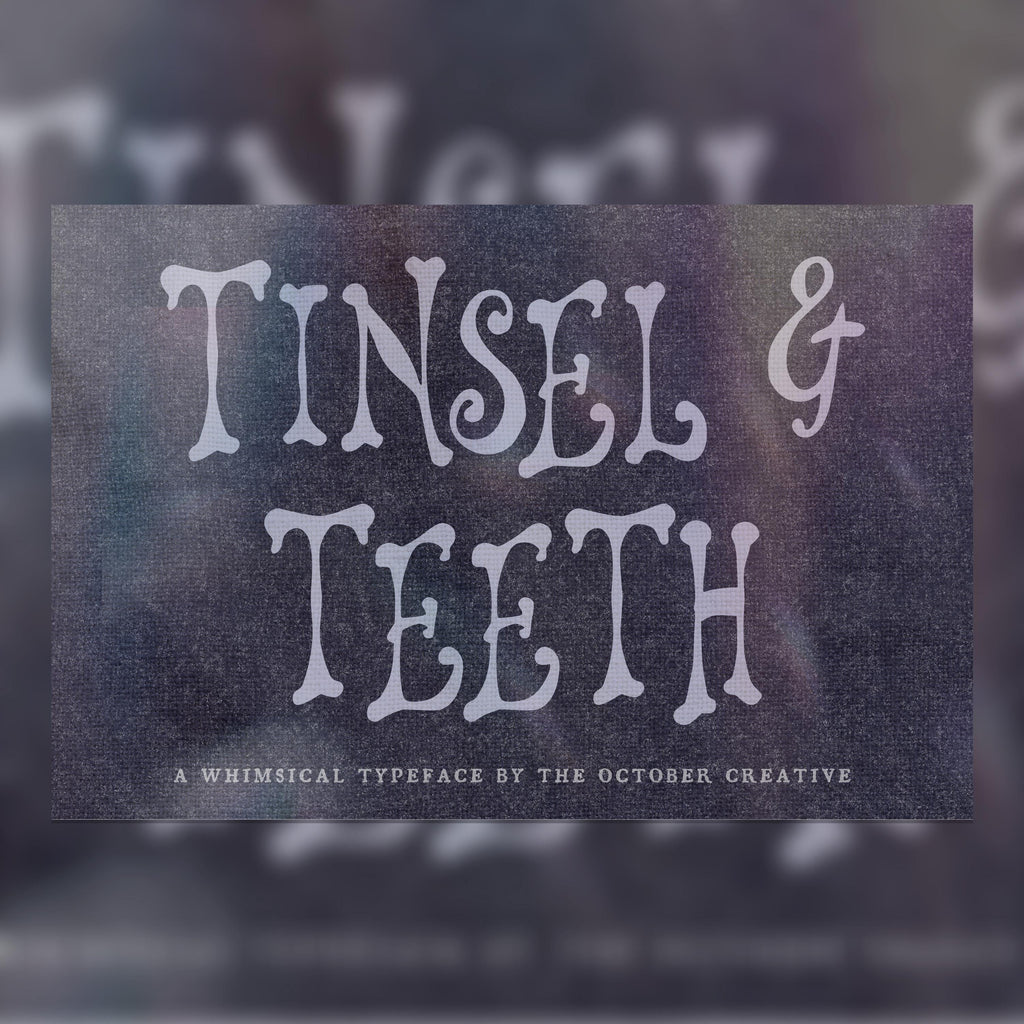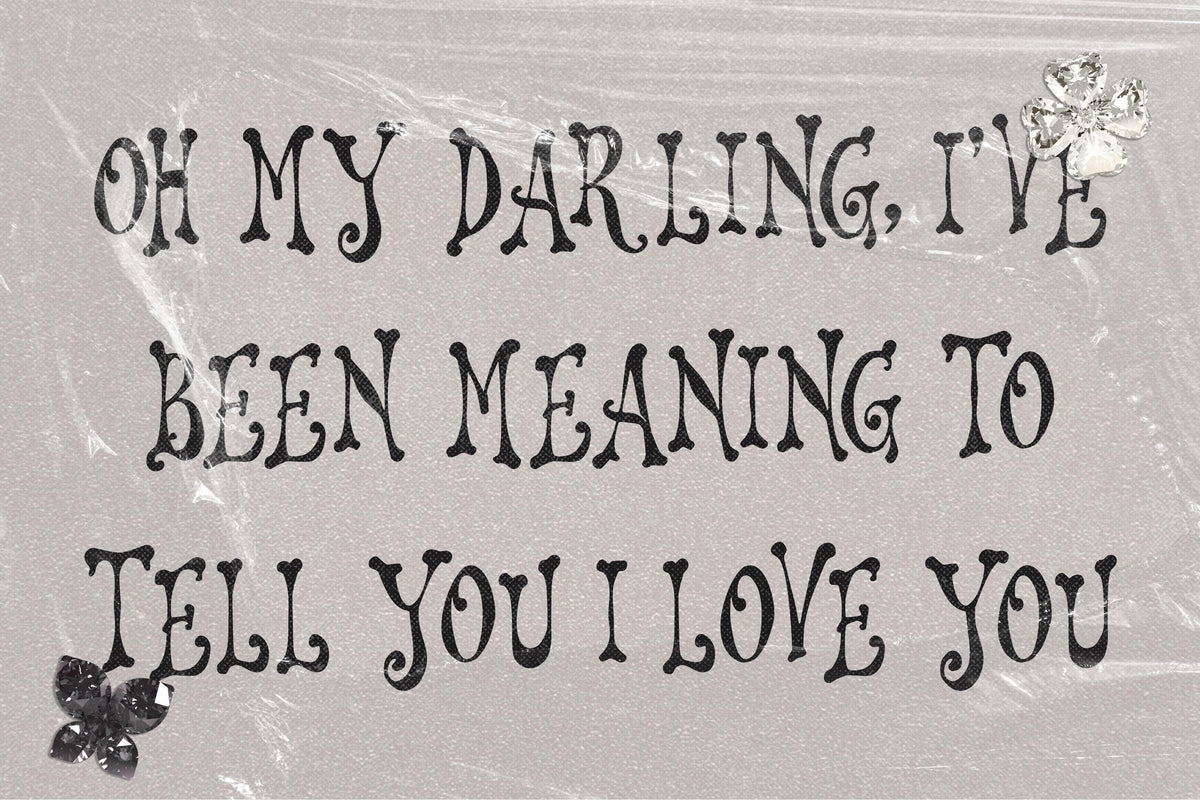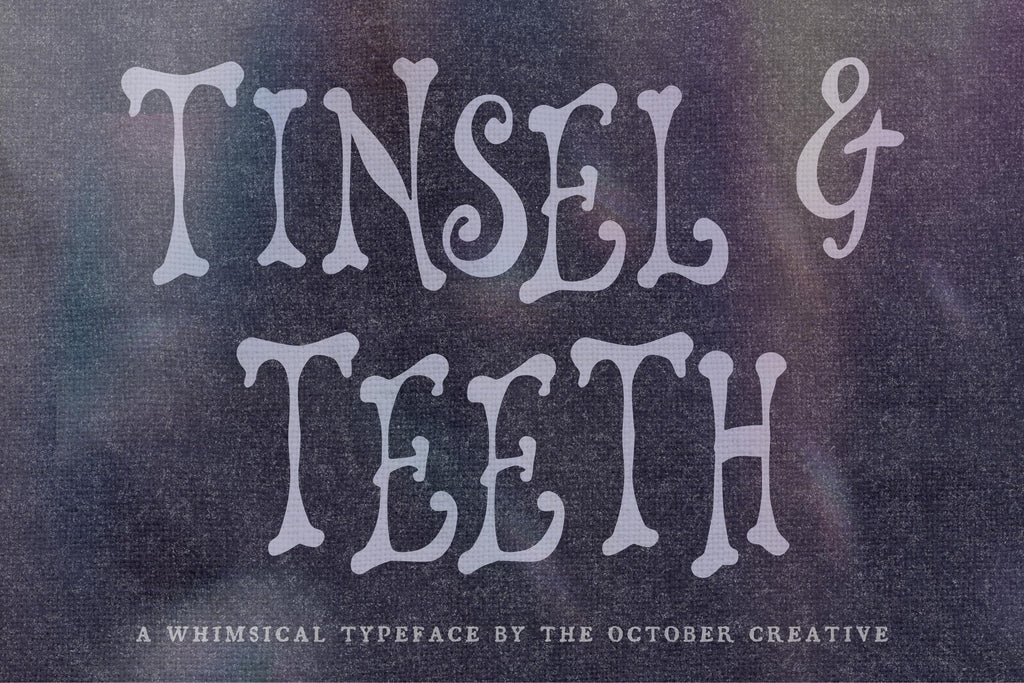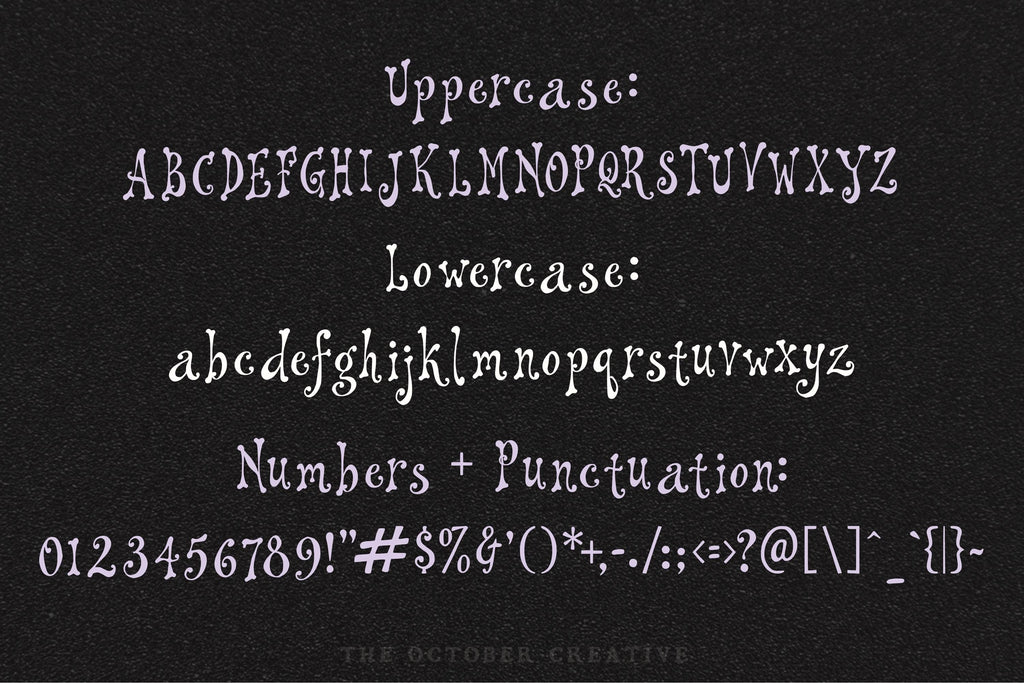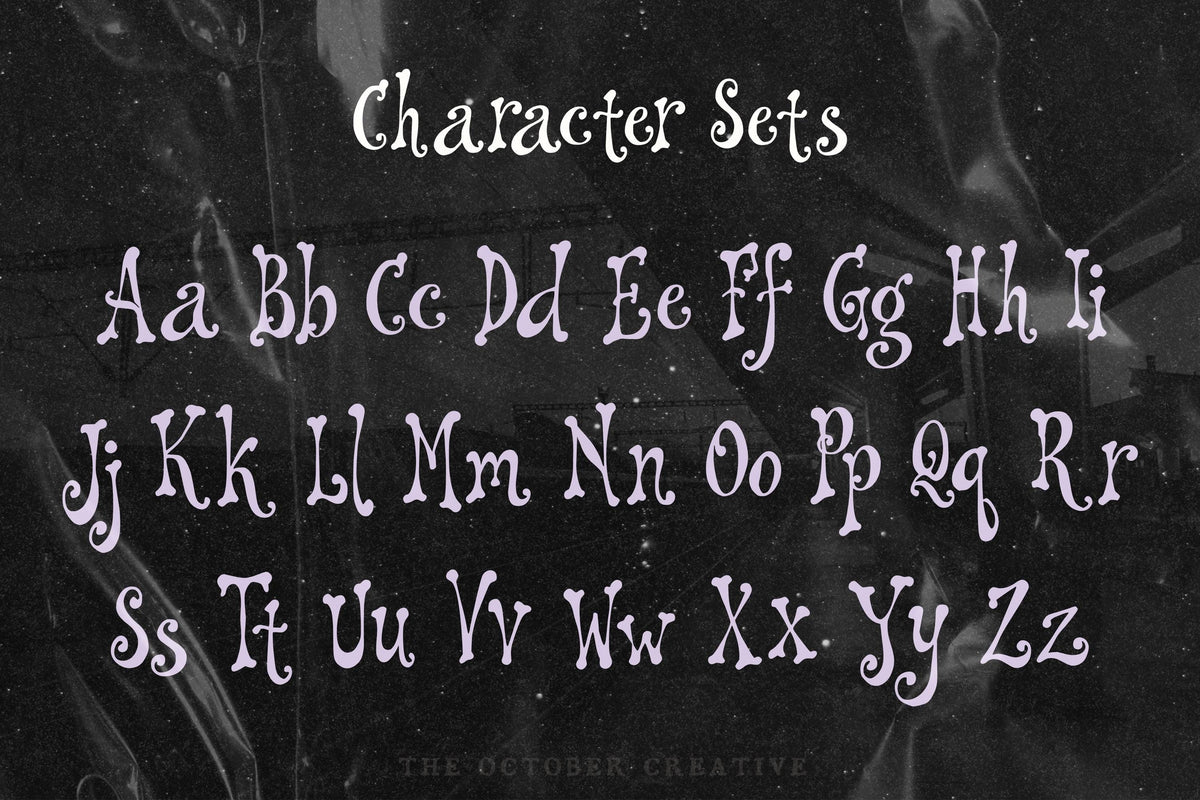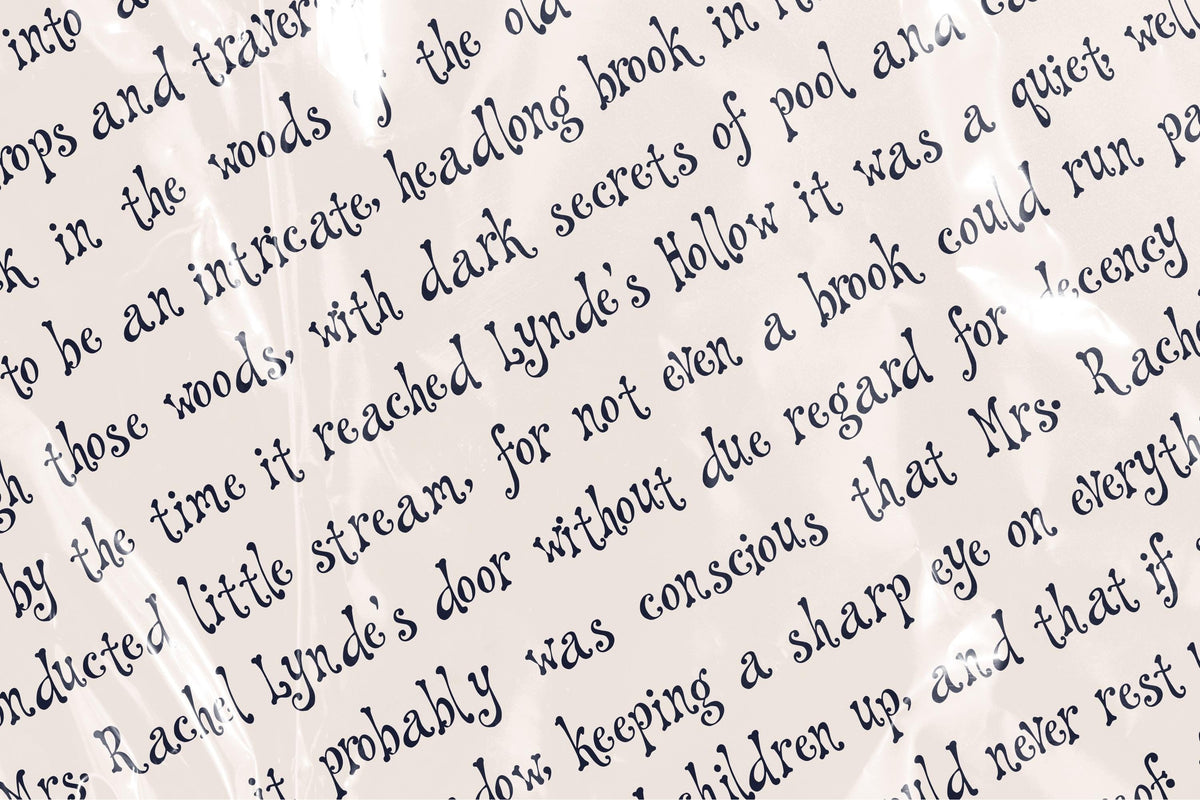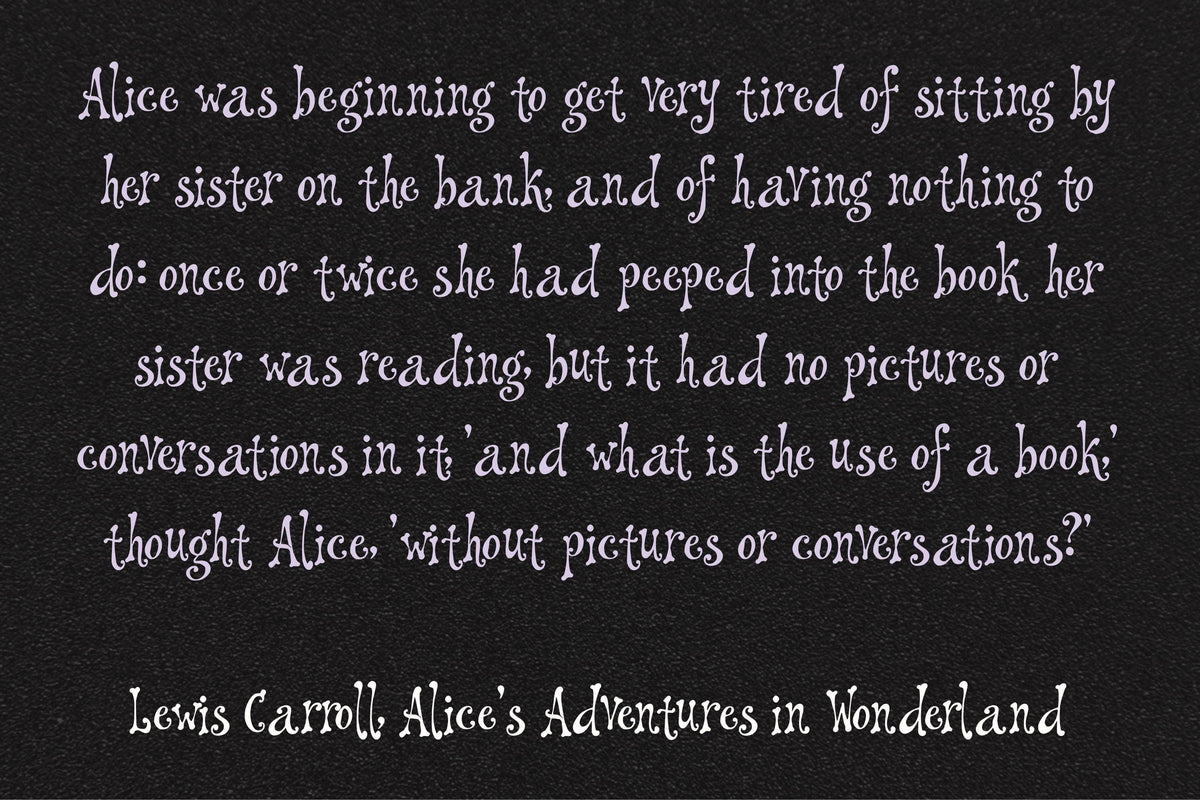
Tinsel & Teeth Font
Tinsel & Teeth puts a few sharp points among bold, curling 70s letters. It's a fun fit for record sleeves, band posters, and party invitations with big lettering and an excellent playlist.